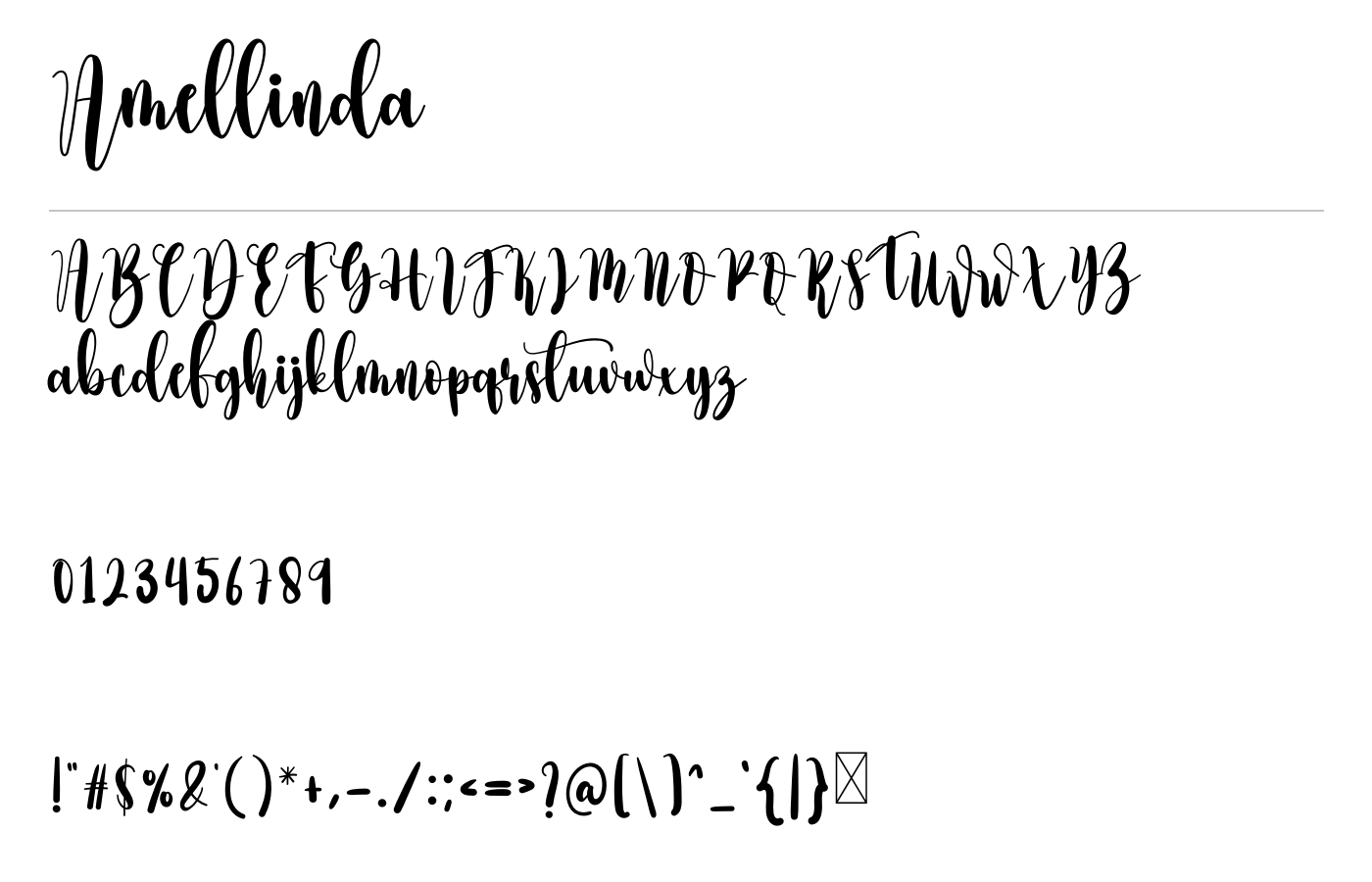
Amellinda is a playful and elegant script font with fluid, hand-drawn letterforms that combine thick and thin strokes for a charming, calligraphic feel. Its lively uppercase letters and smooth lowercase shapes make it perfect for creative and feminine designs, such as invitations, branding, and stylish headlines. This font adds a personal, artistic touch to any project needing a warm and friendly yet sophisticated appearance.
Amellinda Font
About Amellinda Font